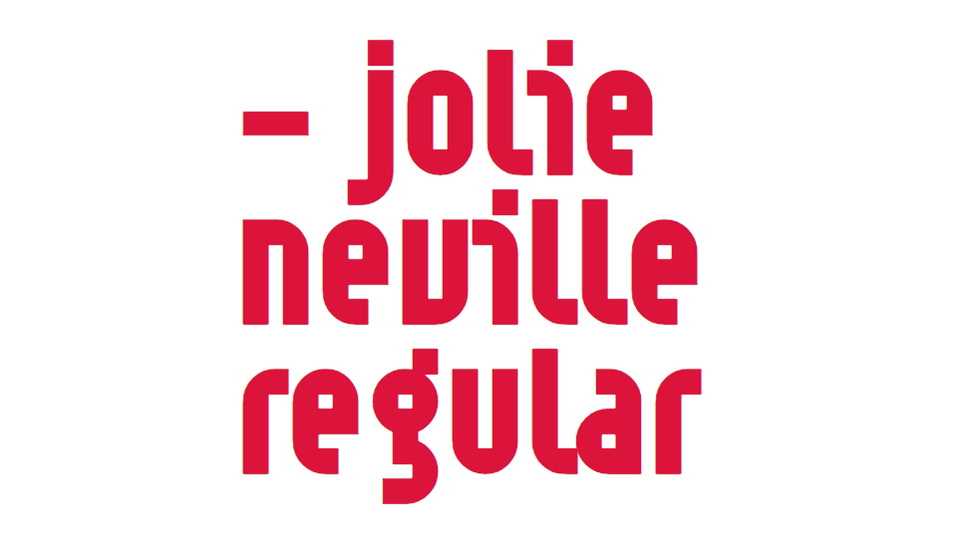
Download Jolie Neville font, an experimental geometric display typeface, a hommage with formal constraints to 80s and 90s fonts such as Modula by Zuzana Licko, Industria by Neville Brody, FF Rosetta by Max Kisman.
Designer: Pierre-Yvon Carnoy